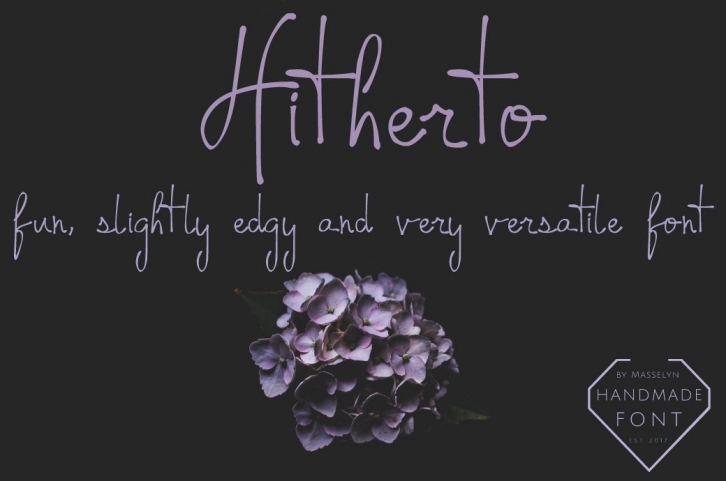
A fun, yet slightly edgy, new handwritten font. As with all of the fonts I will be creating, it looks great in all point sizes, in Illustrator, Photoshop or your favorite design program. Reminds me of some really cool writing you would find in someone's old dusty diary, full of secrets and nostalgic times (with doodles all around the edges).